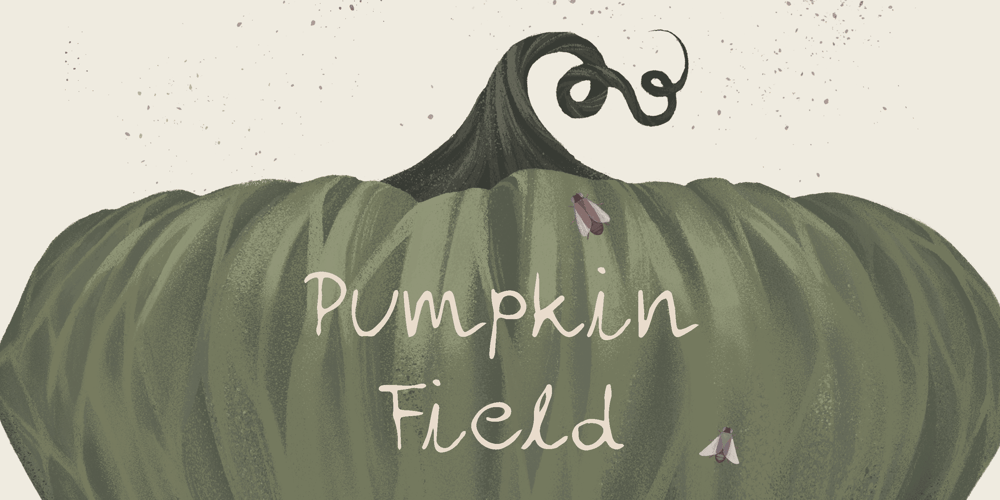
Pumpkin Field Font Family was designed by Maria Brachmańska and published by Maria Brachmańska. Pumpkin Field contains 1 styles and family package options. Pumpkin Field is a font designed to capture the atmosphere of Halloween. It was hand-painted with ink, using a stick. Therefore, it is suitable as an imitation of sloppy, messy writing. The font will also serve perfectly for any materials that are meant to have a slightly spooky, quirky feel – whether it’s Spooktober or not! There are several alternative glyphs in the font. The font supports 68 languages.Supported languages:Afrikaans, Albanian, Asu, Basque, Bemba, Bena, Breton, Catalan, Chiga, Cornish, Danish, Dutch, English, Estonian, Faroese, Filipino, Finnish, French, Friulian, Galician, German, Gusii, Indonesian, Irish, Italian, Kabuverdianu, Kalenjin, Kinyarwanda, Luo, Luxembourgish, Luyia, Machame, Makhuwa-Meetto, Makonde, Malagasy, Manx, Morisyen, North Ndebele, Norwegian Bokmål, Norwegian Nynorsk, Nyankole, Oromo, Polish, Portuguese, Quechua, Romansh, Rombo, Rundi, Rwa, Samburu, Sango, Sangu, Scottish Gaelic, Sena, Shambala, Shona, Soga, Somali, Spanish, Swahili, Swedish, Swiss German, Taita, Teso, Uzbek (Latin), Volapük, Vunjo, Zulu